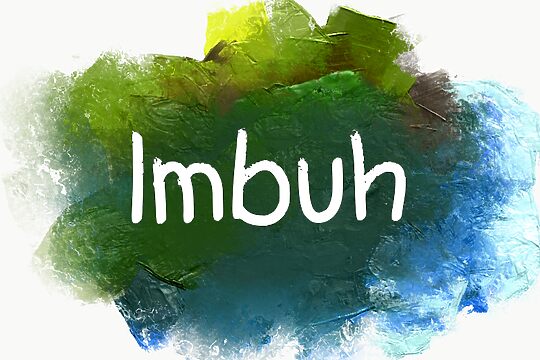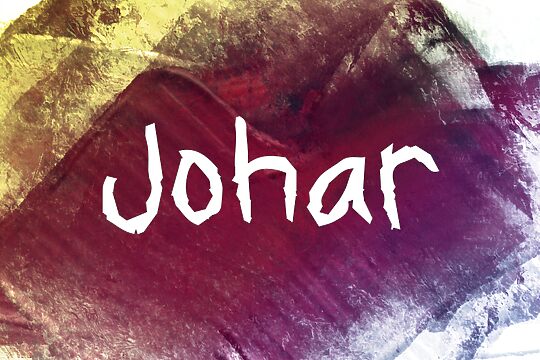
Iwaizu font designed by wep is a free casual typeface inspired by cartoon characters for an informal, playful design approach. With its expressive character, the font allows you to artistically enhance text for major storytelling and branding projects. Energetic but organic letter shapes give a rough yet orderly feel. The result is interesting text presentations that will be loved by your target audience.
Suitable for packaging, posters, comic designs, logos, advertisement, animation, and social media design, the font has endless possibilities. Create captions, titles, or longer texts as your design demands.
Iwazu is a beautifully designed free font that brings a modern aesthetic to your projects. With its clean lines and elegant curves, it is suitable for a variety of applications, from graphic design to web content development. This versatile font adds a touch of sophistication while maintaining excellent readability.
Whether you're creating a poster, social media graphic, or an elegant invitation, Iwazu offers the flexibility you need. Don't miss the opportunity to enhance your designs with this stunning free font.